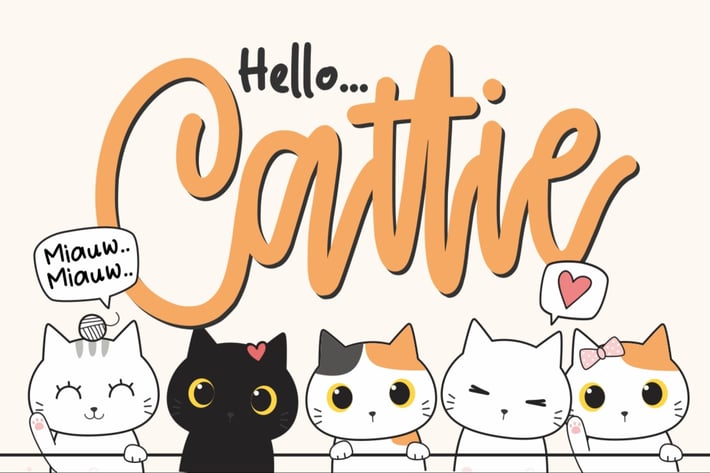
Cattie a Cute Script Font
Cattie – Crafty Font typeface born from original and natural handwritten in the paper with bold point and pen; delivering a stylish typeface that is guaranteed to add naturality styles and taste appeal to your logo designs, brand imagery, quotes, product packaging, merchandise & social media posts.
Uppercase & Lowercase letters -Numbers & Punctuation
Ligatures
* Multilingual Support with the accent.